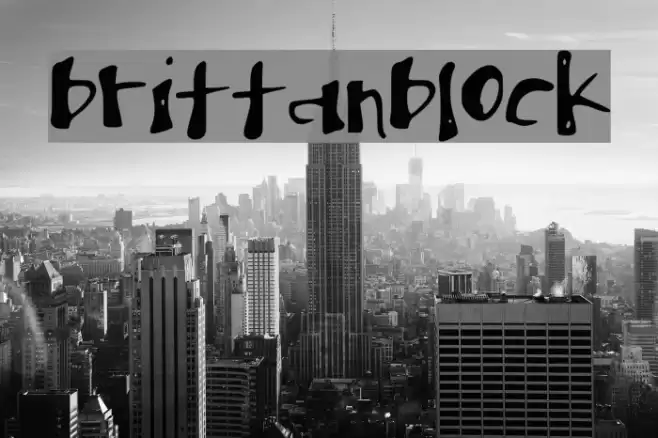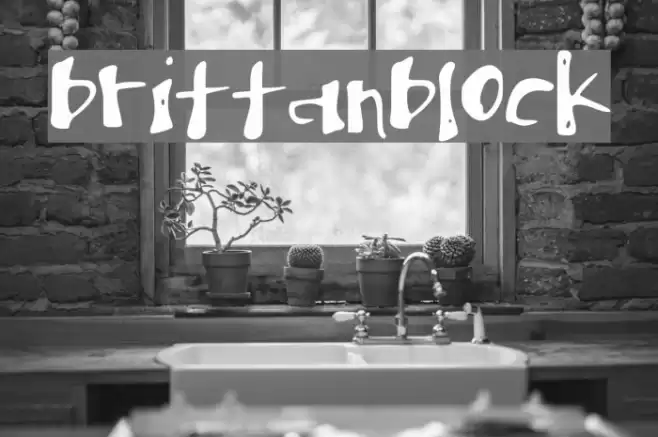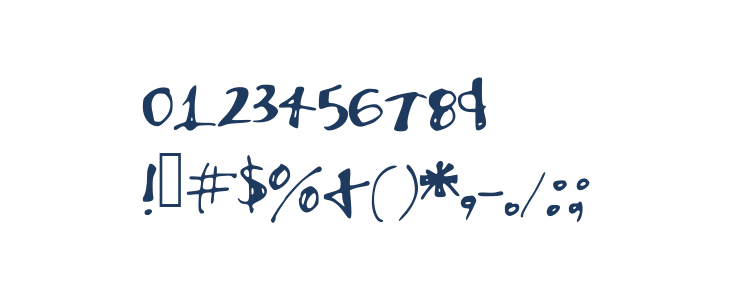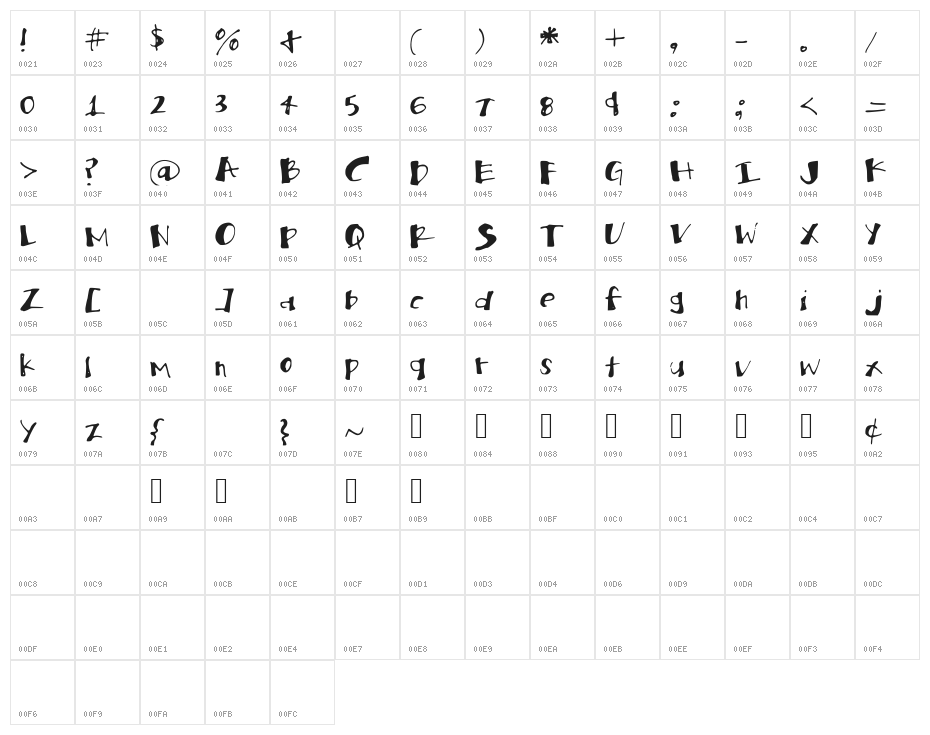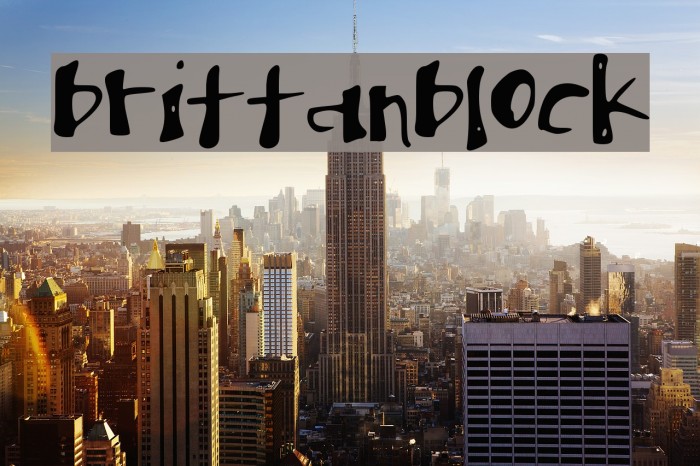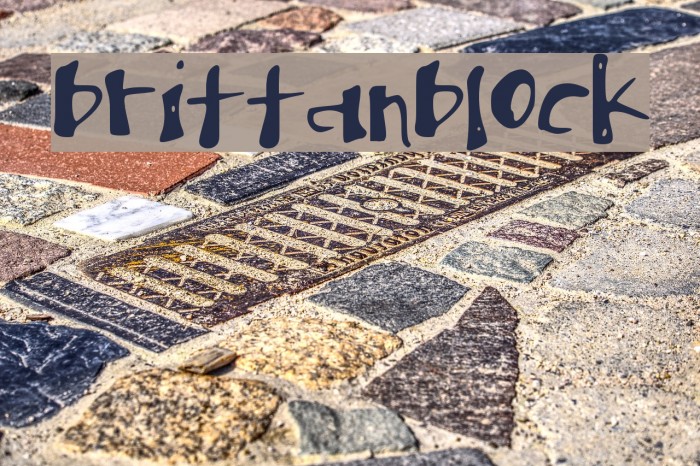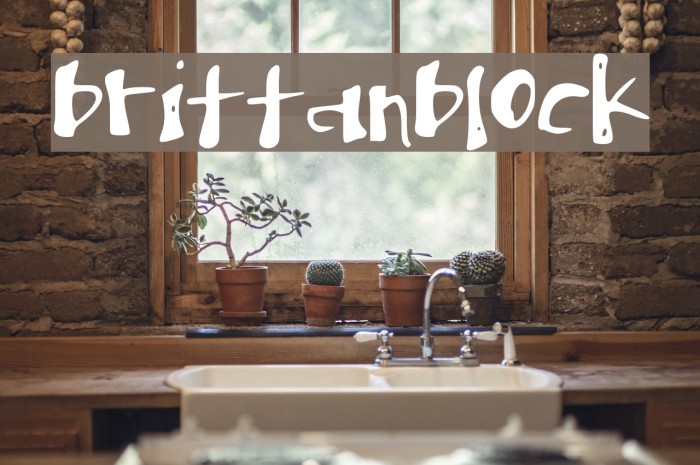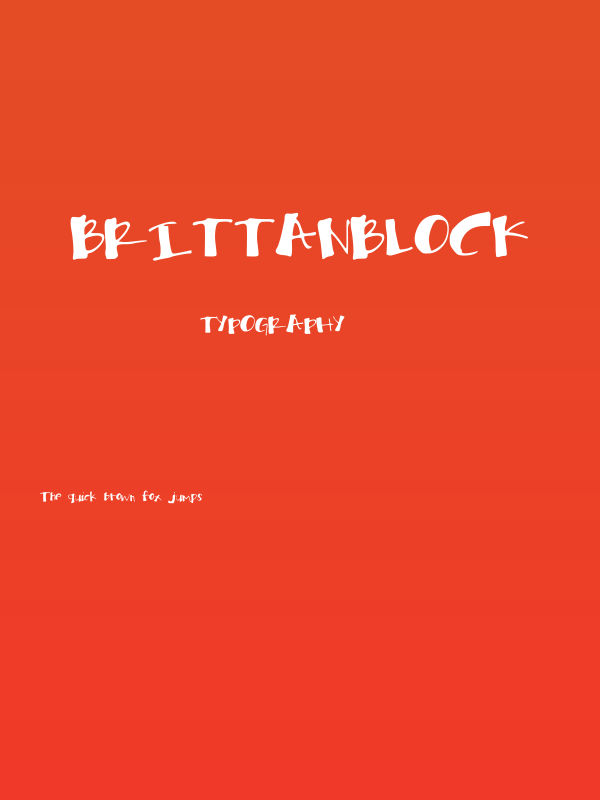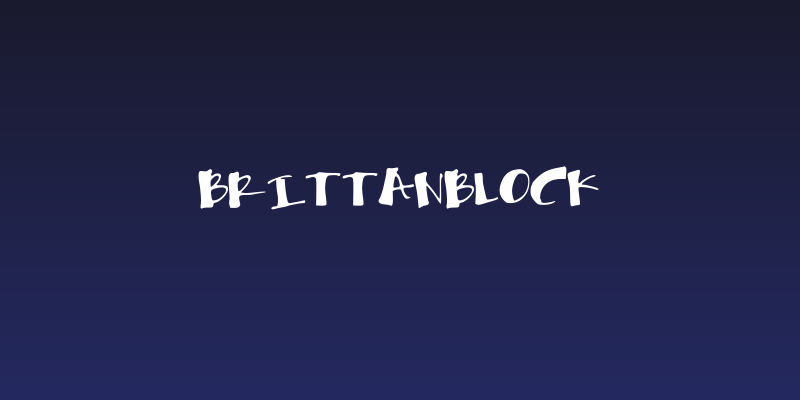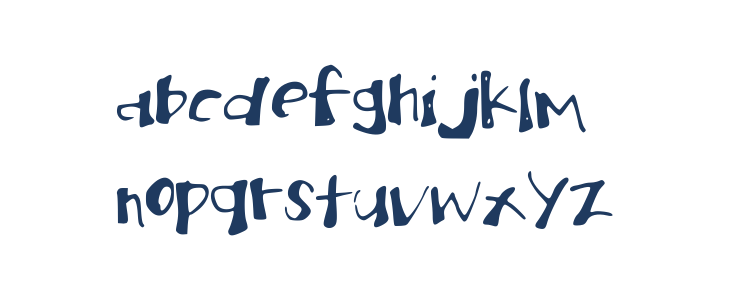
brittanblock Font
brittanblock Description
This font features a bold and expressive style with a handwritten appearance. The characters are irregular and dynamic, giving a sense of movement and creativity. The uppercase and lowercase letters maintain a consistent flow, while the numbers and special characters add a playful touch. The strokes are thick and varied, contributing to a high contrast that enhances its visual impact. This font is ideal for projects that require a personal and artistic touch, such as invitations, posters, and branding materials.
A bold, expressive handwritten font with high contrast and dynamic strokes from Cartoon fonts.
- Proposed Projects: Ideal for creative projects like invitations, posters, and branding materials.